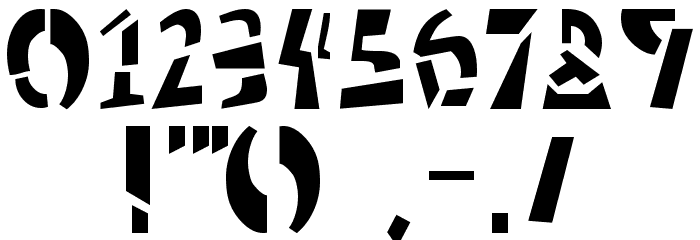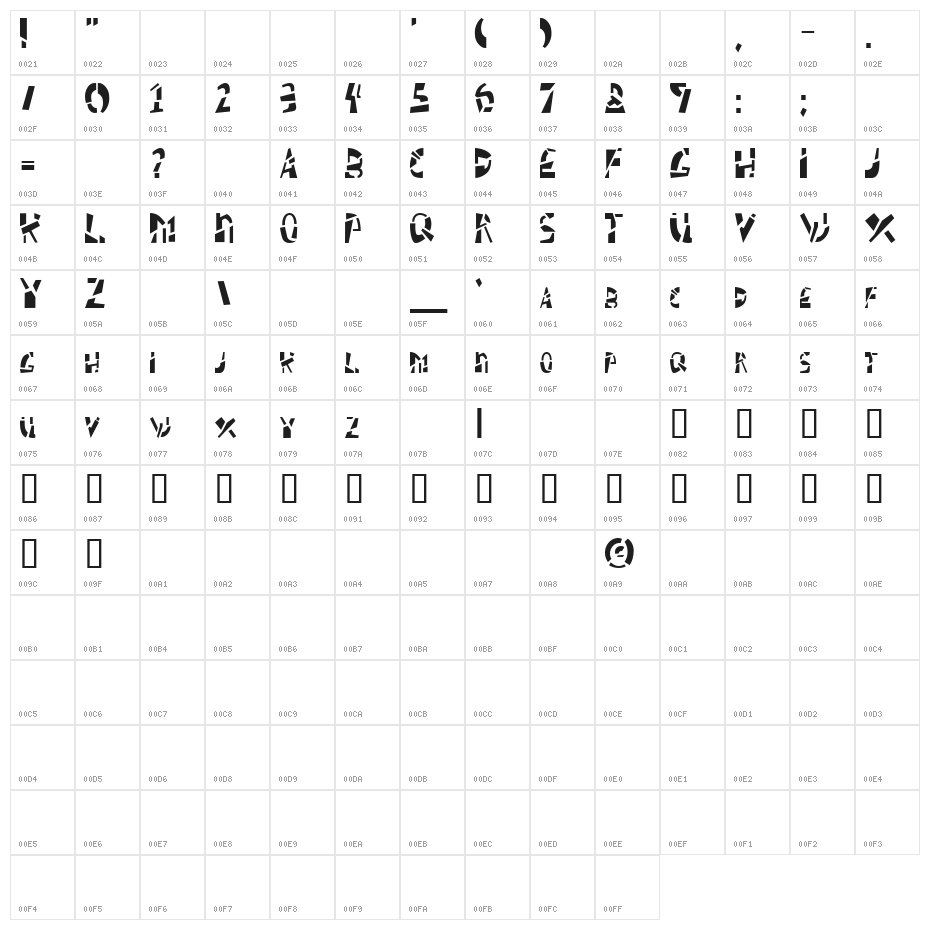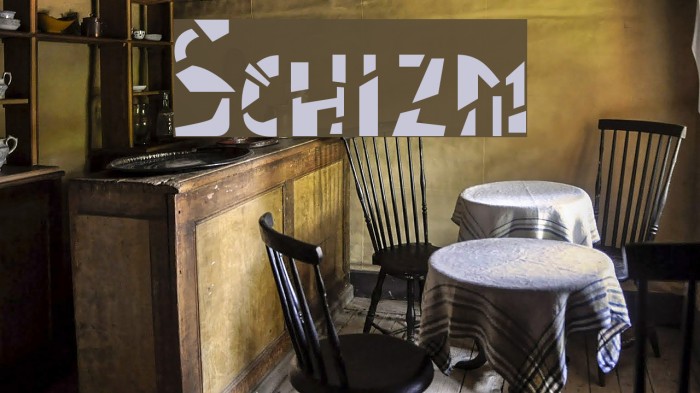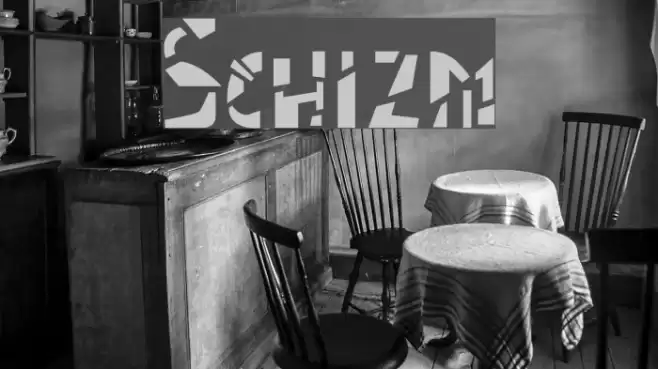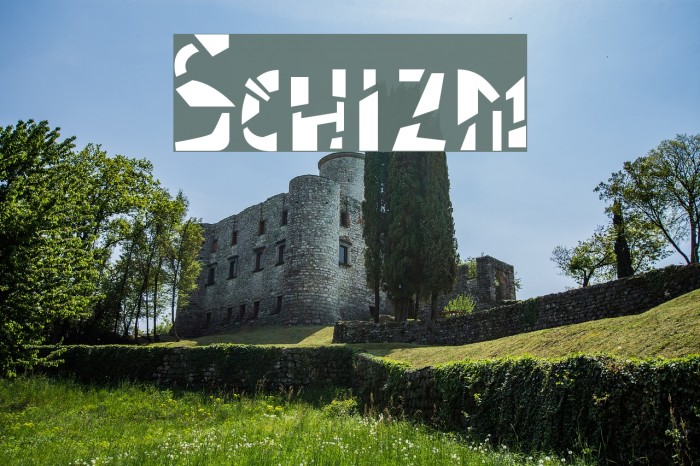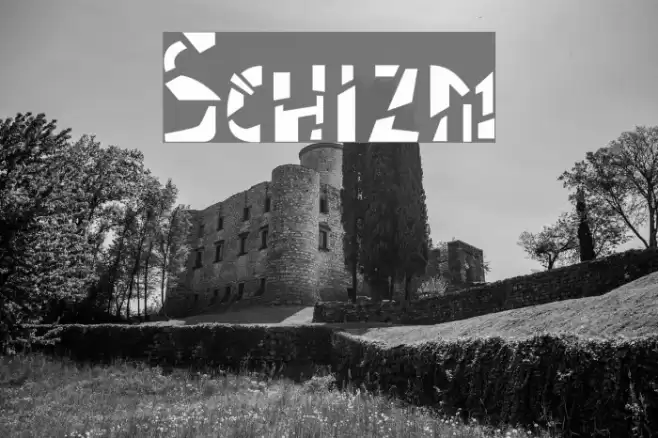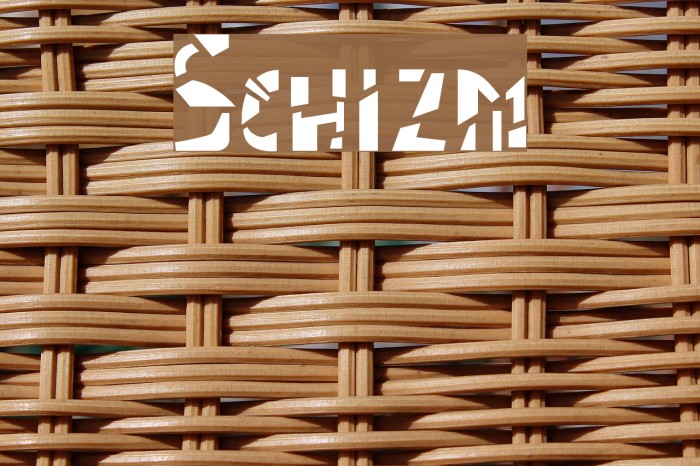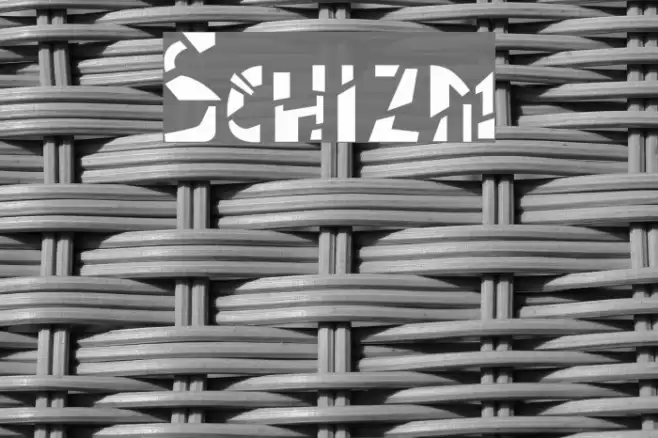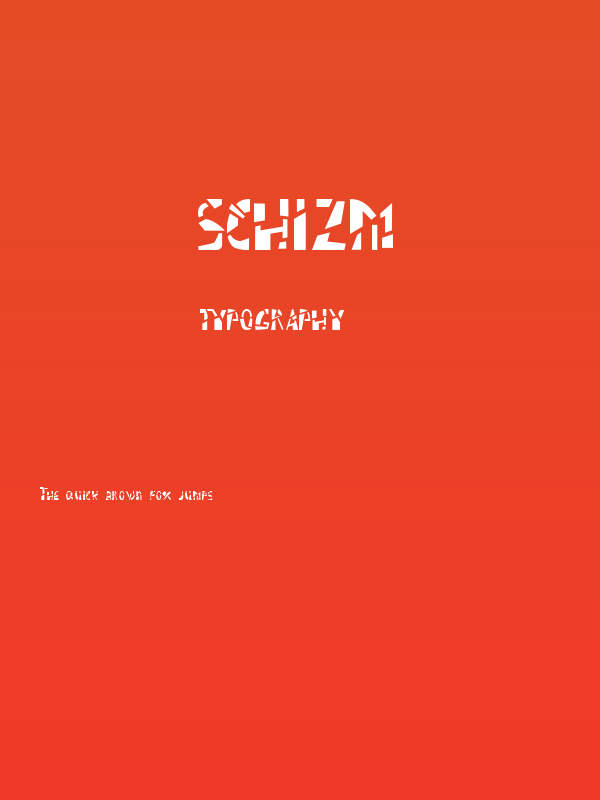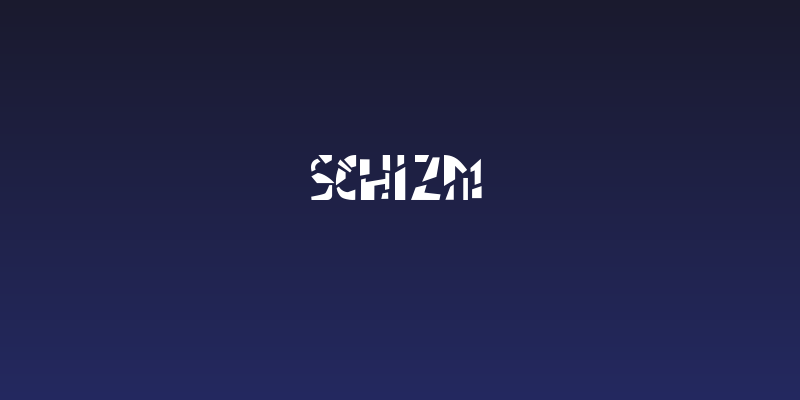
Schizm Font
Schizm Description
This font features a highly distinctive and fragmented design, with each character appearing as if it has been sliced into geometric segments. The bold, angular shapes create a sense of movement and dynamism, making it ideal for attention-grabbing designs. The uppercase and lowercase letters maintain a consistent style, with sharp edges and a modern, industrial feel. Numbers and special characters follow the same aesthetic, ensuring a cohesive look across all text elements. The font's unique style is perfect for projects that require a strong visual impact.
| Proposed Projects | Ideal for posters, album covers, branding, and any project needing a bold, modern aesthetic. |